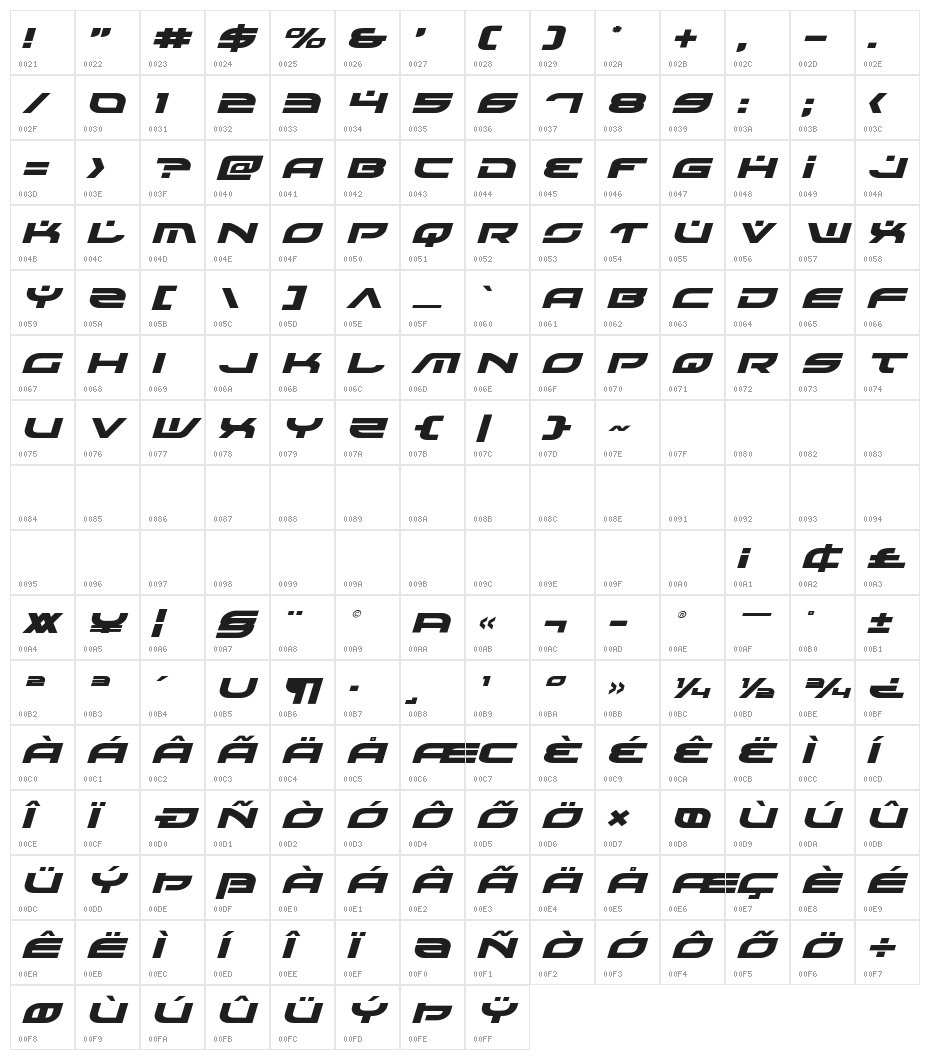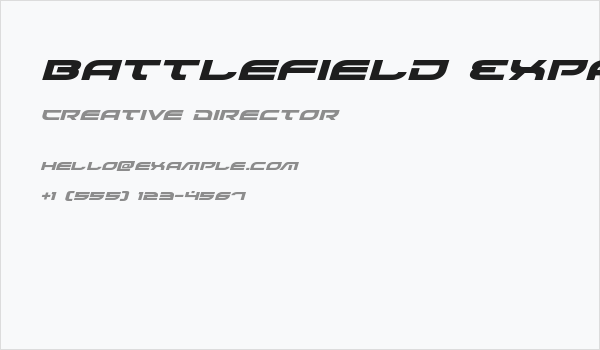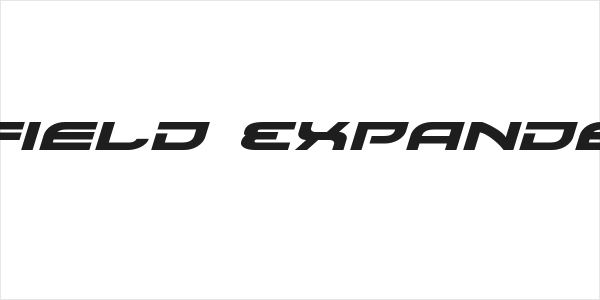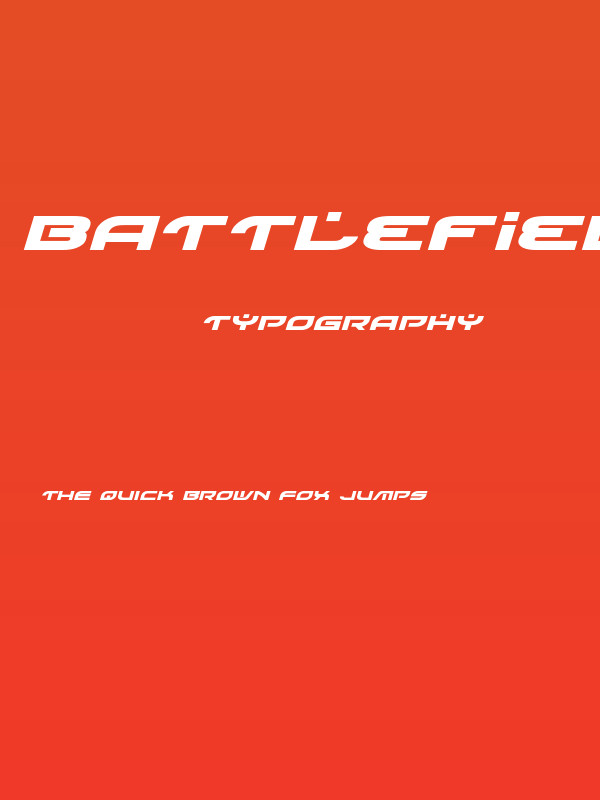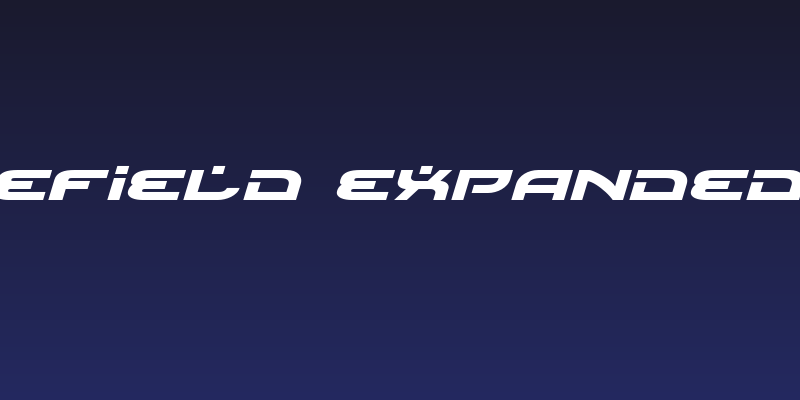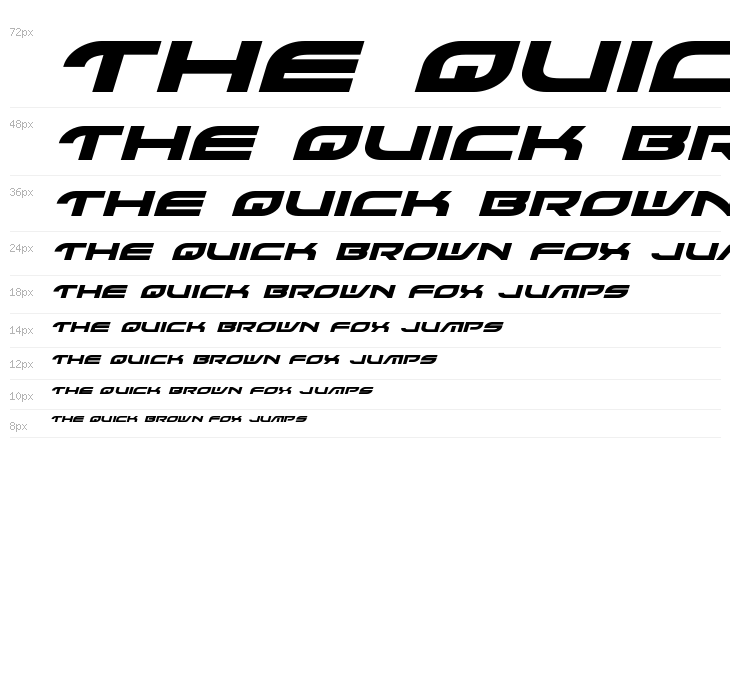
Battlefield Expanded Italic Font
Battlefield Expanded Italic Description
This font features a futuristic and dynamic style with an italicized slant, giving it a sense of motion and speed. The characters are bold and expanded, with a geometric design that emphasizes sharp angles and clean lines. The uppercase and lowercase letters maintain a consistent style, with a slight variation in the lowercase to enhance readability. Numbers and special characters are designed to match the overall aesthetic, making them suitable for a cohesive design. The font's expanded width and bold weight make it ideal for attention-grabbing headlines and titles.
| Proposed Projects | Ideal for video game titles, sci-fi movie posters, technology branding, and sports event promotions. |